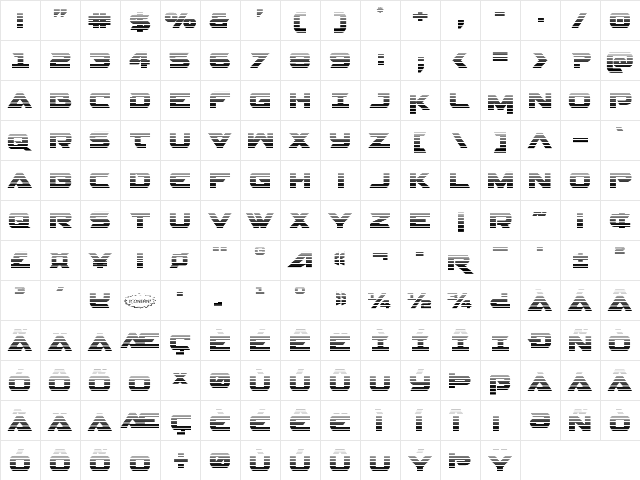
Gemina 2 Gradient Regular
Design Context for Gemina 2 Gradient Typeface
Gemina 2 Gradient is a composed and adaptable typeface that performs quietly and consistently across a wide range of design contexts.